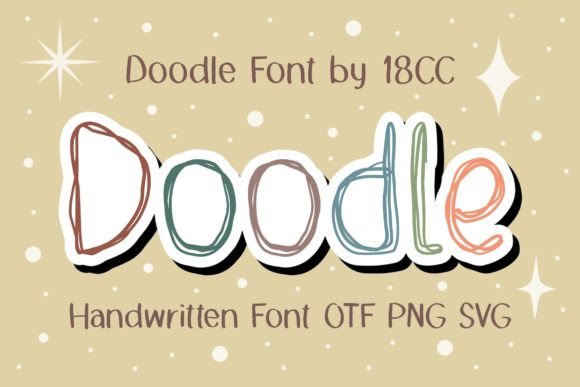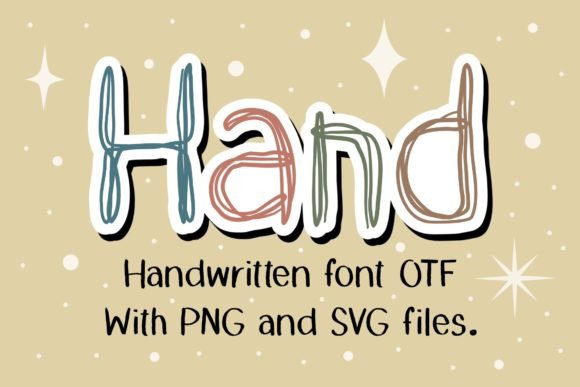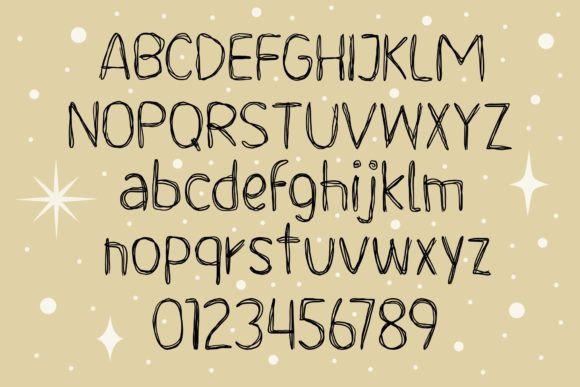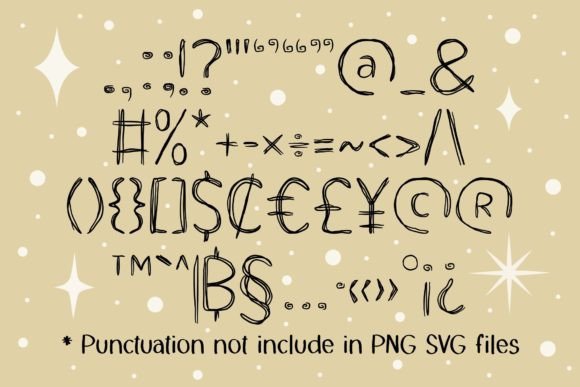
Doodle Font
About the Doodle Font
Step up your design game with Doodle Font, a font that exudes confidence and style. Doodle is a messy handwriting font. Fun and a little bit quirky, this font is the perfect fit for all of your note, branding, social media, and crafty DIY projects.
Doodle Font’s playful energy makes it ideal for headlines, short bursts of text in branding materials, and social media graphics. It works exceptionally well on packaging for artisanal products or children’s goods, adding a handcrafted touch. However, its informal nature makes it unsuitable for body text, lengthy paragraphs, or user interfaces where readability is paramount.
For a balanced aesthetic, pair Doodle with a clean sans-serif like Open Sans for body copy or a more structured serif like Garamond for a sophisticated contrast. Consider pairing it with a simple geometric sans-serif for a modern feel, or a playful script font for an enhanced whimsical effect.
Doodle Font’s core personality is undeniably friendly and approachable, conveying a sense of creativity and approachability. It projects a handmade, almost childlike charm, best suited for brands and projects that want to emphasize authenticity and lightheartedness.